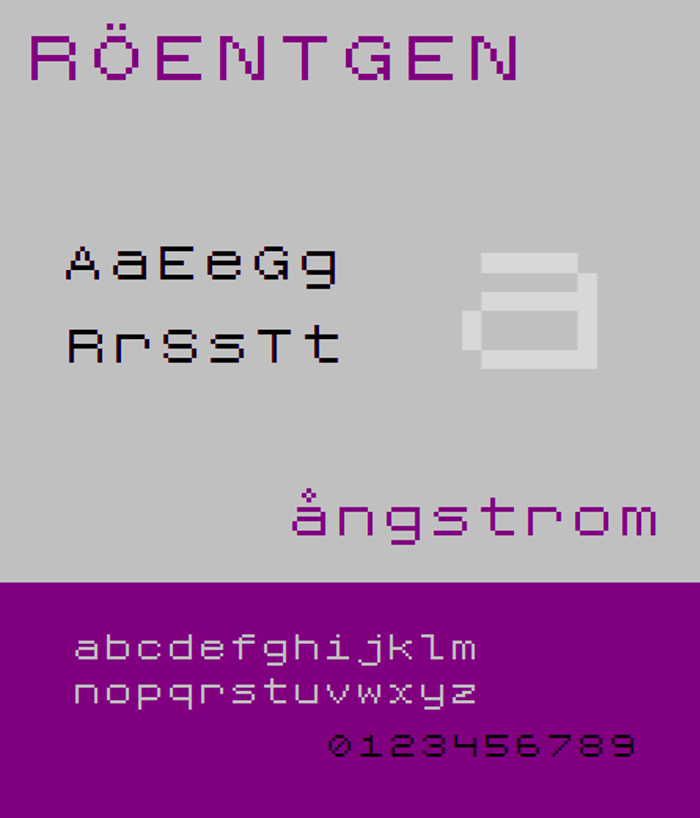
Roentgen NBP Font
What if instead of word processing software, we had electronic computerised typewriters. You type a string of text, it gets stored in memory until you run out of space and a dot matrix printer prints it out onto the paper. That was the inspiration behind this pixel font: making old technology new again.
Not that it's ever going to happen, of course...